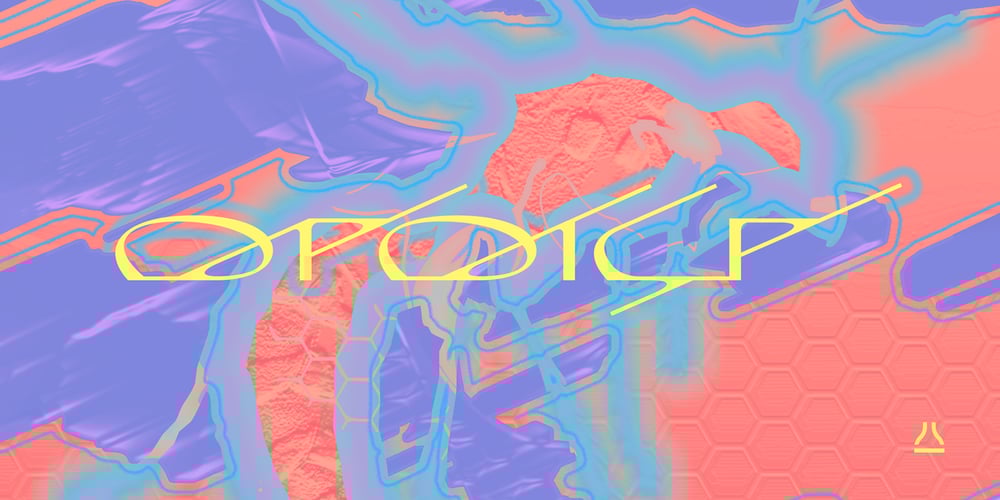
Wasp
Wasp font
Wasp Font Family was designed by Peter Bushuev and published by NaumType. Wasp contains 2 styles and family package options. Wasp is a super-display typeface, which in a few words can be described as well-structured calligraphic humanist sans.It’s come to life as an idea to make calligraphy-oriented sans but consciously avoid any horizontal middle strokes.Wasp has a few alternates for each letter, which (despite its unruly nature) allows for finding a good-looking solution in almost any typographic situation.